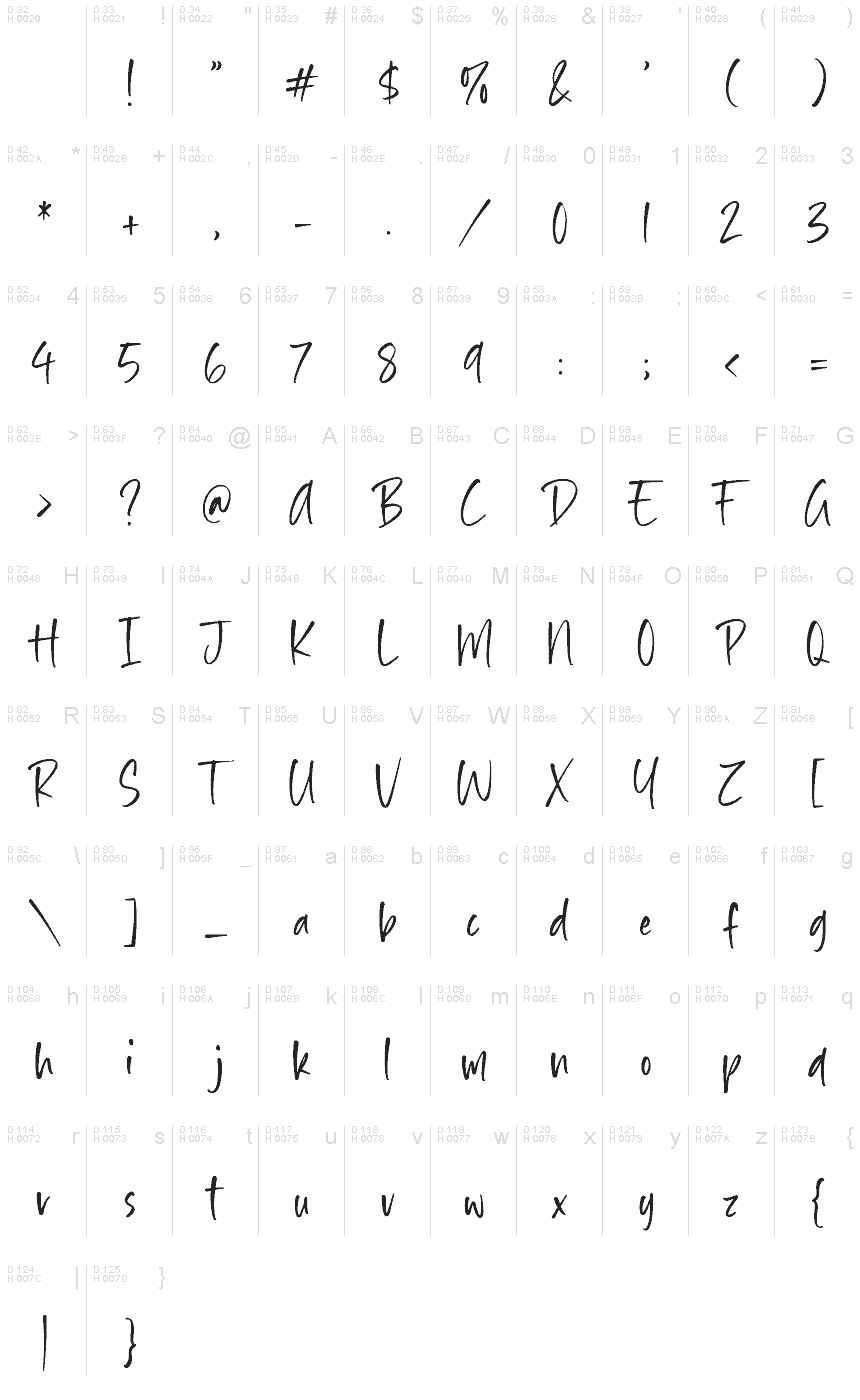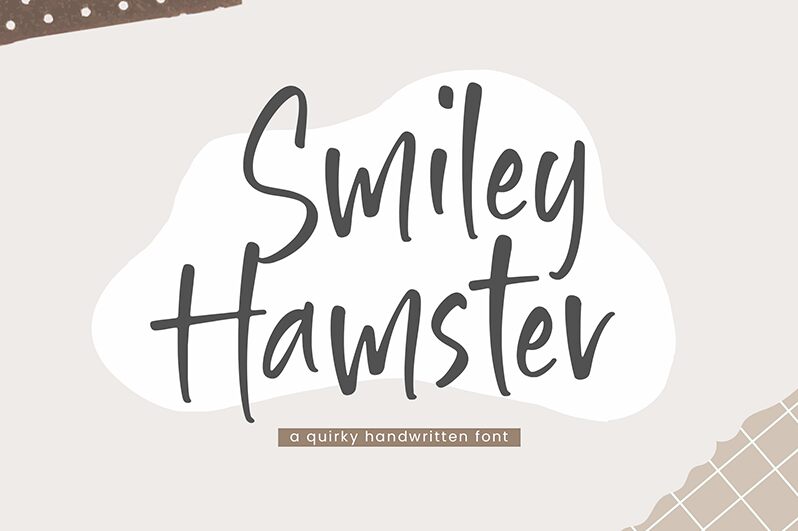
Smiley Hamster
Smiley Hamster font by Timur Type Studio is a casual, modern handwritten display font. Expressive characters carry an energetic and dynamic vibe that feels approachable and friendly. The regular weight casual letters make the typeface versatile within limits for short text.
This free handwritten font is perfect for logos, headlines, quotes, posters, product design ideas, social media graphics, business cards branding and product packaging visuals that need a subtle human touch.